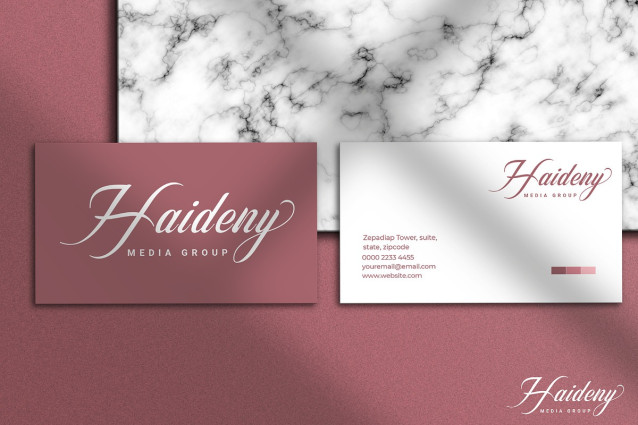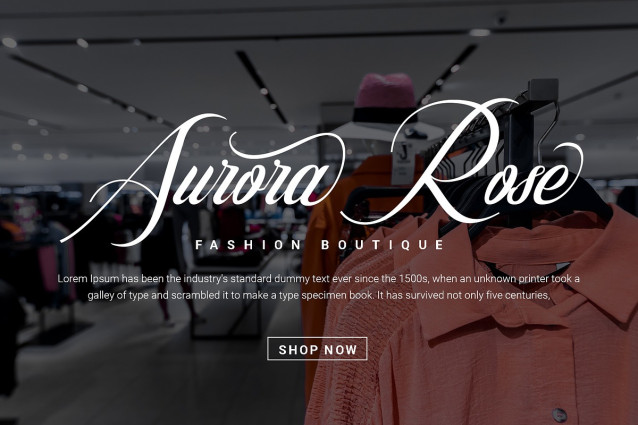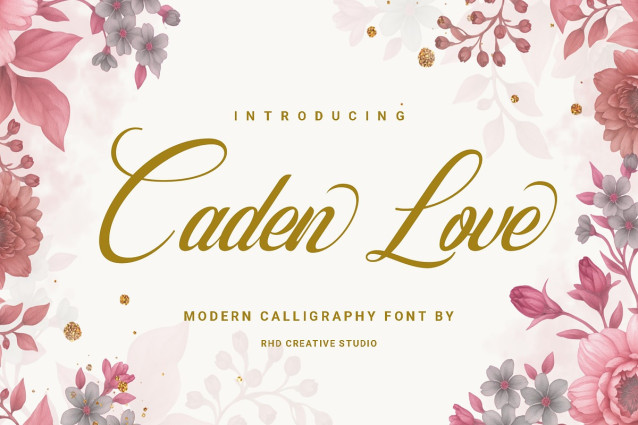
Caden Love Font
Caden Love Font is a modern calligraphy font that blends elegance with expressive artistry. Its flowing script style features graceful curves, high-contrast strokes, and refined thin-to-thick transitions that evoke a sense of romance and sophistication. Long, sweeping ascenders and descenders give it a luxurious, hand-lettered charm, while the ornate swashes and alternate characters add versatility for decorative purposes. Perfect for wedding invitations, branding, and upscale packaging, it carries a timeless appeal with a contemporary polish, making text look both intimate and refined.